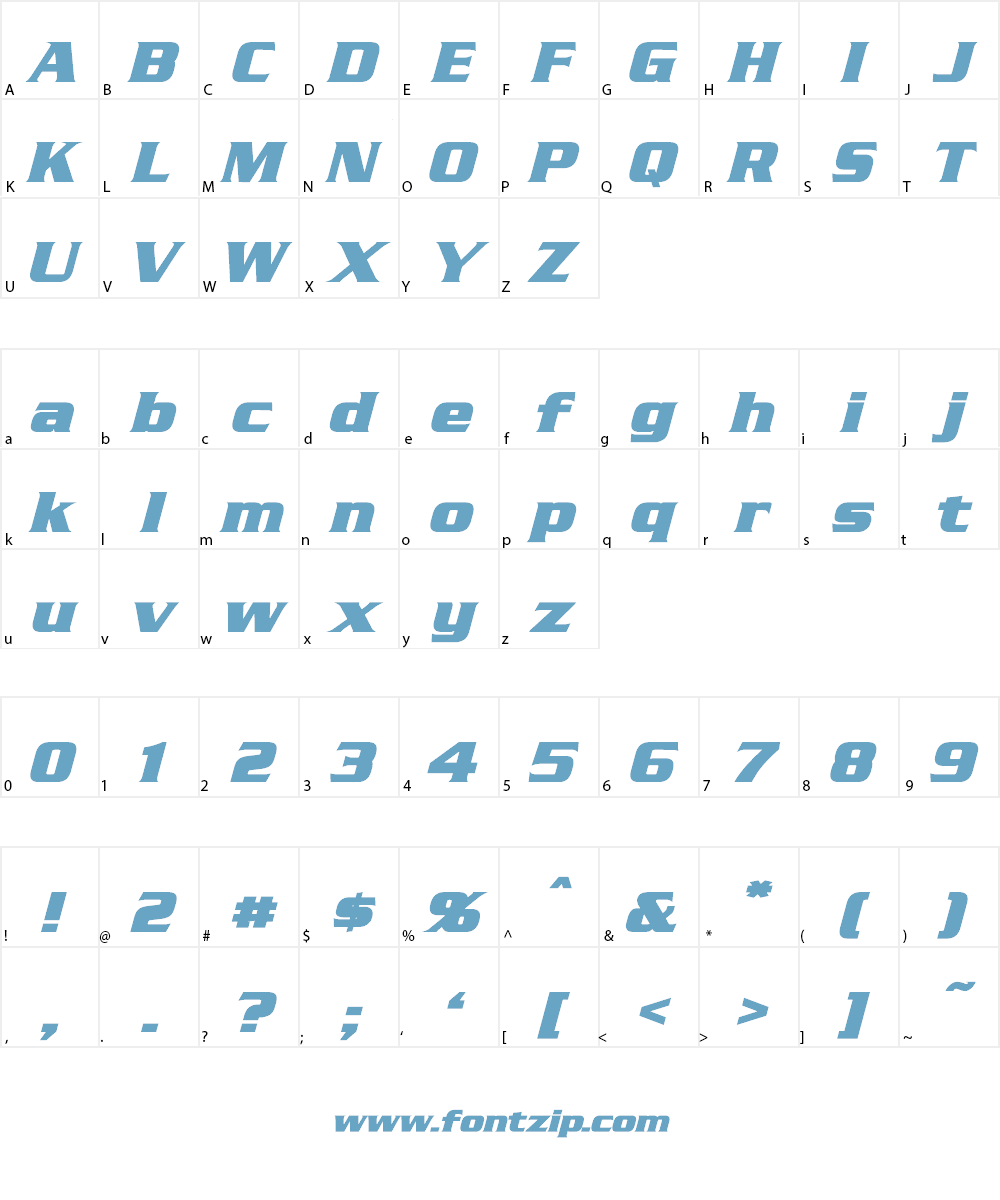
This bold typeface is based on the opening credits for the classic television series "Babylon 5". Includes full alphabet, punctuation, extended characters, euro. Includes bold and italic versions.